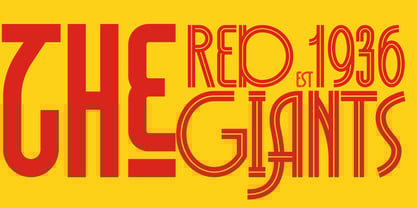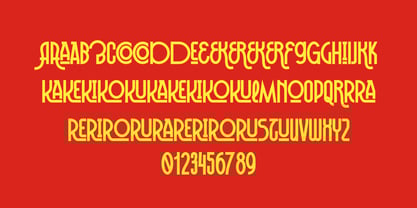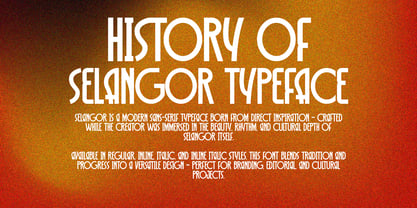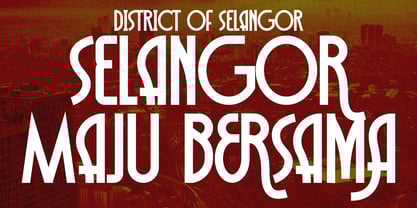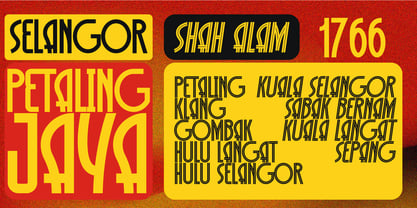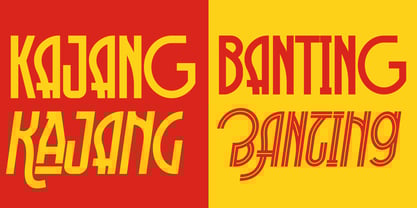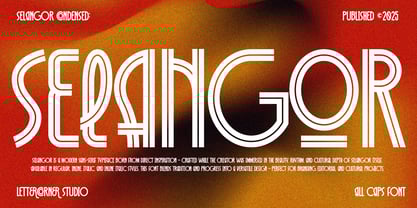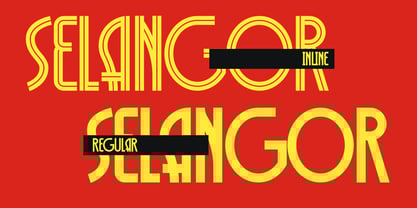
Selangor
The Selangor Font Family was designed by Muhammad Afif Ersya and published by Mevstory Studio. Selangor contains 4 styles and family package options. More about this family
Selangor is a modern sans-serif typeface inspired by the layered history and evolving cultural identity of Malaysia’s most iconic state.
Reflecting the dynamic spirit of Selangor — from the royal traditions of Klang and the architectural legacy of colonial rule, to the vibrant multiculturalism of Shah Alam and the forward-thinking urban pulse of Petaling Jaya — this font weaves the old and new into every curve and line.
Comprising four refined stylesRegular, Inline, Italic, and Inline ItalicSelangor offers flexibility for a wide range of visual expressions. The Regular style embodies strength and structure, the Inline brings decorative detail reminiscent of traditional art and craft, the Italic introduces flow and rhythm, and the Inline Italic fuses both — symbolizing progress in motion.
Whether used for editorial design, branding, cultural exhibitions, or modern signage, Selangor is more than just a font — it is a celebration of identity, heritage, and transformation.